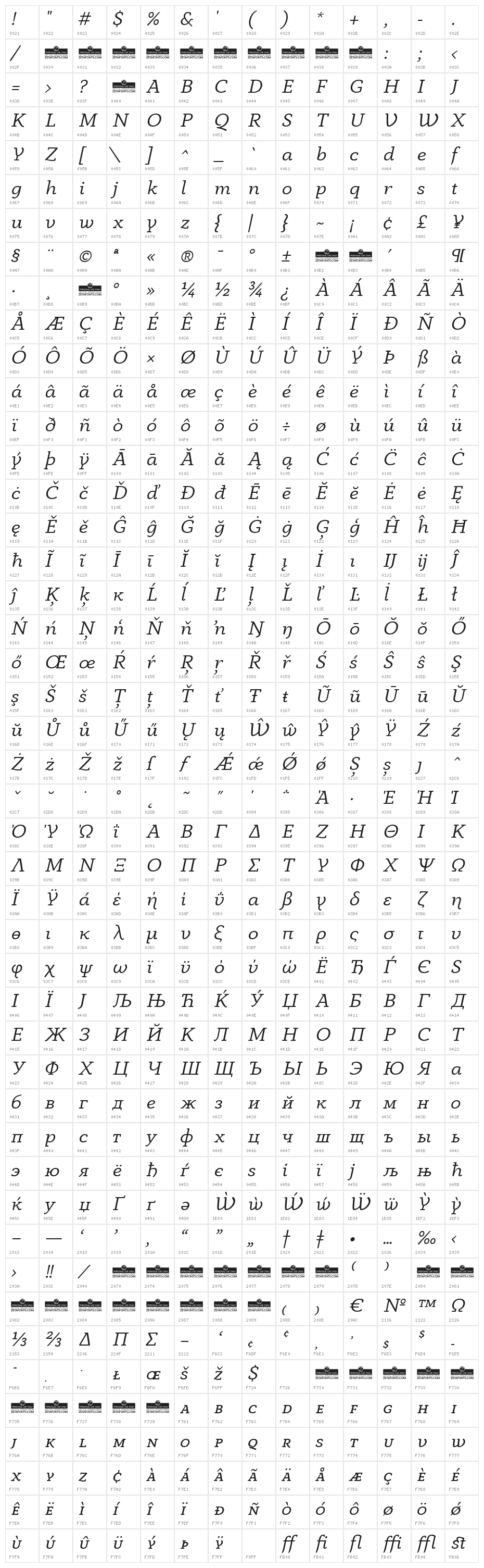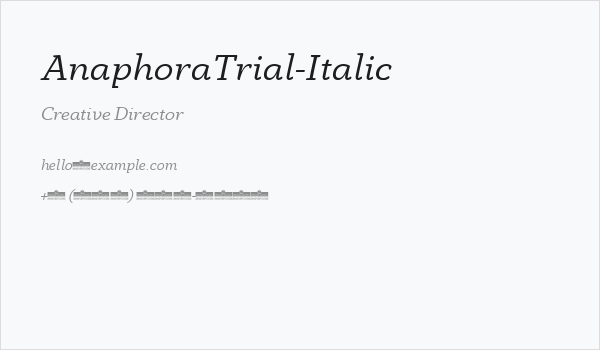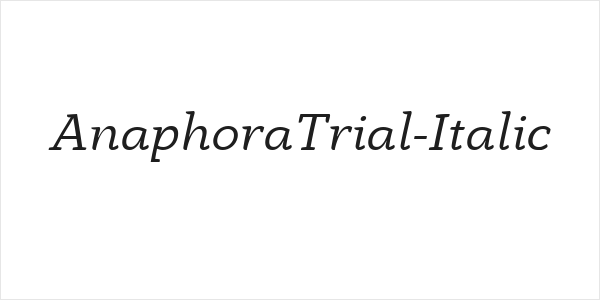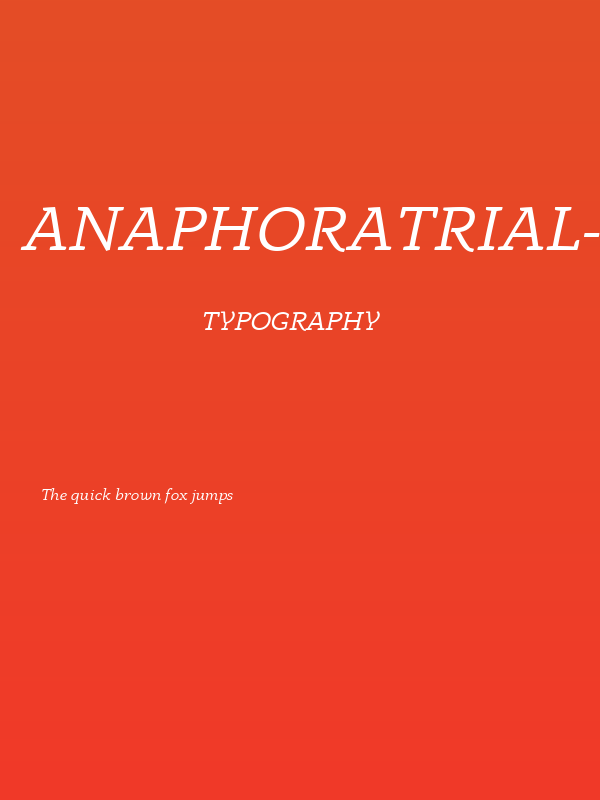
AnaphoraTrial-Italic Font
AnaphoraTrial-Italic Description
This font features a sophisticated and elegant italic style, characterized by smooth, flowing curves and a slight slant to the right. The uppercase letters are well-proportioned, with a classic serif design that adds a touch of formality and tradition. The lowercase letters maintain a consistent style, with gentle curves and a harmonious balance between thick and thin strokes. The numerals are clear and legible, matching the overall aesthetic of the font. Special characters are designed with the same attention to detail, ensuring a cohesive look across all glyphs. This font exudes a sense of refinement and grace, making it suitable for a variety of applications.
| Proposed Projects | Ideal for wedding invitations, formal documents, elegant branding, and editorial design. |